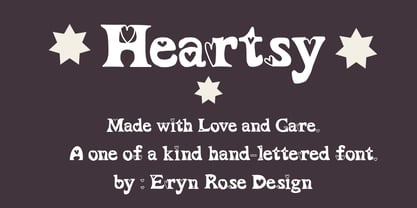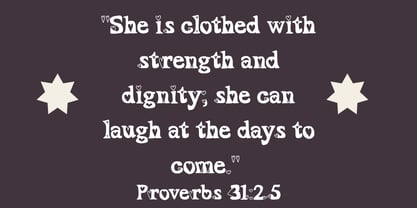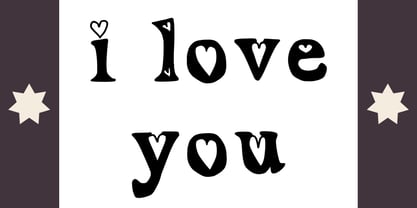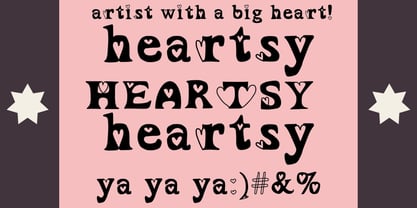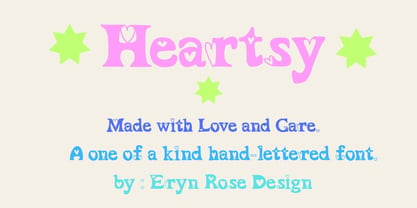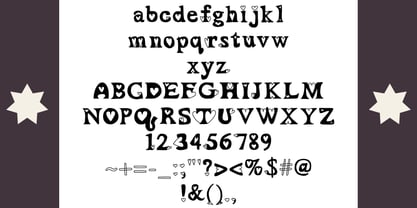
Heartsy
by Eryn Rose Design
The Heartsy Font Family was designed by Eryn Rose Tomlinson and published by Eryn Rose Design. Heartsy contains 1 styles. More about this family
Discover a delightful hand-drawn font that radiates warmth and creativity! This unique typeface features a charming heart on every character, including numbers and symbols, making it perfect for adding a personal touch to your designs. Ideal for artistic projects, Heartsy is sure to captivate your audience with its playful and heartfelt style. Whether you're designing for children's projects, stationery, or eye-catching displays, this font brings an explosion of personality to any creation. Enjoy the joy of designing with this one-of-a-kind font and celebrate the beauty of human-made typography!
Designers: Eryn Rose Tomlinson
Foundry: Eryn Rose Design
About Eryn Rose Design
Eryn Rose, a graduate of the Rhode Island School of Design, is a multifaceted artist specializing in illustration, graphic design, and type design. She skillfully blends modern and classic typography, leveraging her fine art and design expertise. Each piece of her typography is unique, ensuring that it cannot be replicated or found elsewhere. Eryn's typography is artfully crafted, infusing warmth into her designs that only a human touch can provide. Her work resonates across various industries, including editorial, tech, and retail, setting her apart in the competitive market with her signature style and design philosophy.